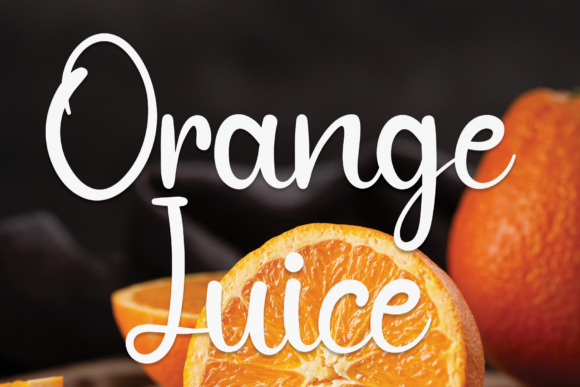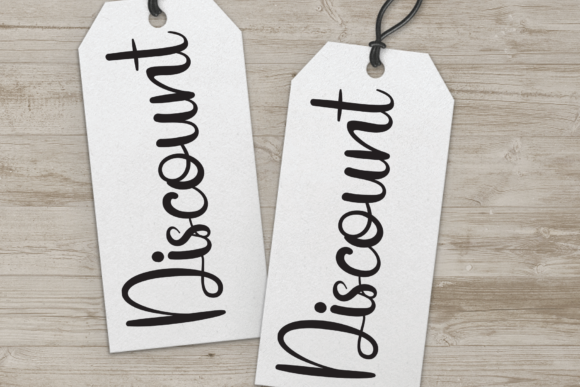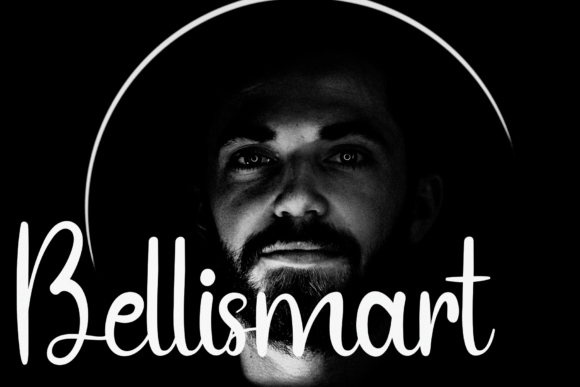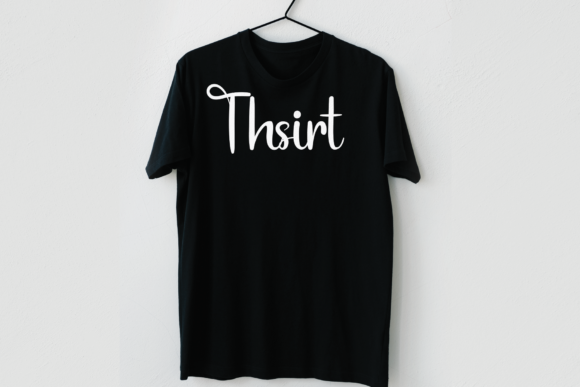
Orange Juice Font
About Orange Juice Font
Orange Juice is a sweet handwritten script font that brings a unique charm to any design project. Script fonts like Orange Juice are known for their fluidity and elegance, often mimicking the style of handwritten calligraphy. This makes them a popular choice for a variety of projects that require a touch of sophistication and personalization.
Crafted with great care, Orange Juice produces the expected results, providing a beautiful and balanced character that fits well with a large design pool. Its sweet nature makes it suitable for both modern and vintage aesthetics, providing a timeless appeal.
In the world of script fonts, Orange Juice stands out for its unique style. It manages to strike a balance between being sweet and handwritten, making it a great choice for projects that require a delicate touch. Despite its handwritten nature, Orange Juice is robust enough to be used in a variety of applications, from small labels to large signage.
In conclusion, Orange Juice is more than just a sweet handwritten script font. It’s a versatile design tool that can bring a unique, personal touch to your projects. Whether you’re a seasoned designer or just starting out, Orange Juice is a script font worth considering. Its combination of style, versatility, and legibility make it a standout choice in the world of script fonts. So, if you’re looking for a script font that can add a beautiful script taste to your projects, Orange Juice might just be the perfect fit.